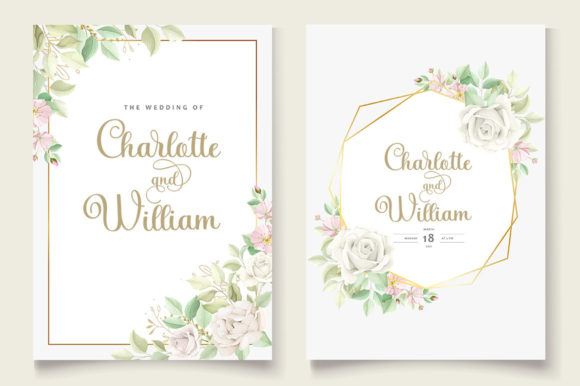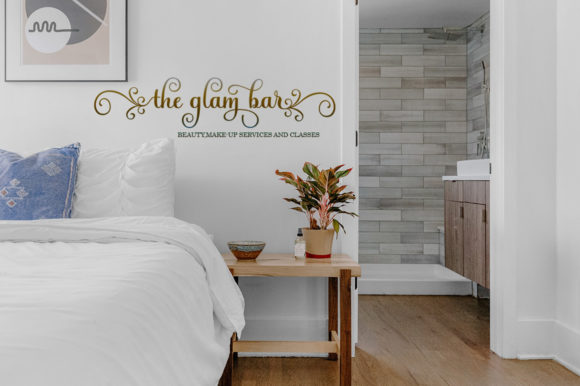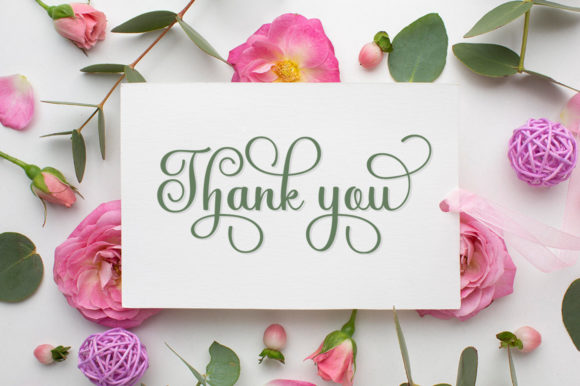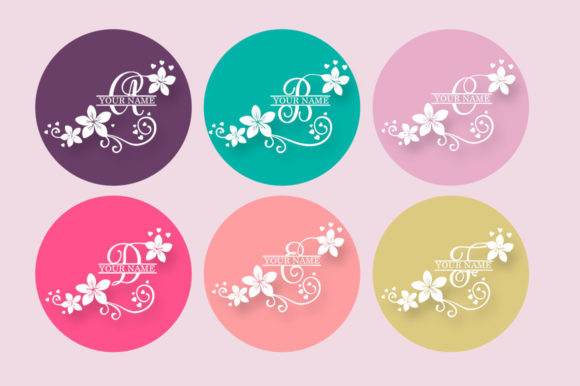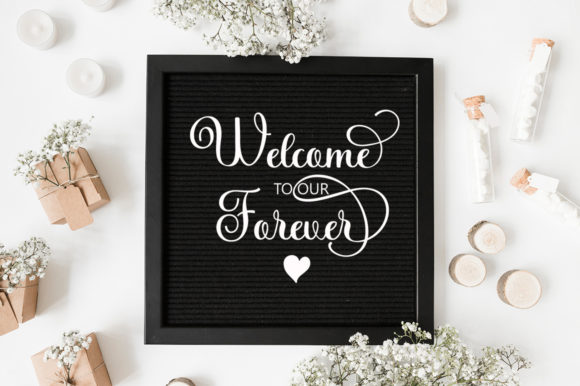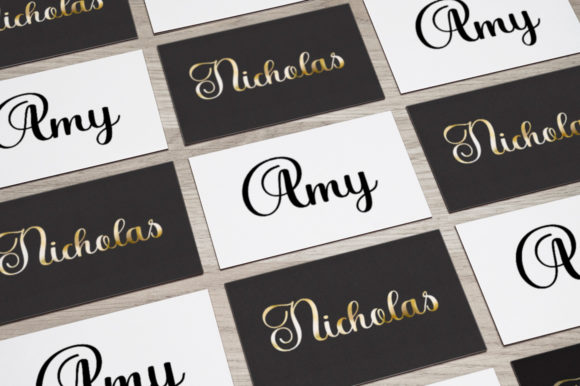
The Elegance of Bouquet Font: A Designer’s Delight
I’ll never forget the time I was working on a wedding invitation project, and my client asked for a font that exuded elegance and sophistication. I scoured the internet, tried out countless fonts, but nothing seemed quite right. That was until I stumbled upon Bouquet Font. It was love at first sight! 💕 The delicate lines, the varying baseline, and the gorgeous glyphs all came together to create a font that was truly breathtaking.
A Personal Review of Bouquet Font
- ✨ Incredibly elegant and delicate, perfect for wedding invitations, thank you cards, and other formal designs
- ✅ Features a varying baseline, which adds a touch of handmade charm to any design
- ✅ Smooth lines and stunning glyphs make it a joy to work with
- ✅ Stunning alternates and OpenType features allow for endless creative possibilities
While Bouquet Font is a stunning addition to any design, there are a few things to keep in mind. 🤔 For example, it can be a bit tricky to read at very small sizes, so it’s best to use it for headlines or titles rather than body text. ⚠️ Additionally, some of the more intricate glyphs may not display properly on all devices or platforms.
The Story Behind Bouquet Font
Bouquet Font was designed by a talented typographer who wanted to create a font that captured the essence of a beautiful, hand-tied bouquet. With its delicate lines, varying baseline, and gorgeous glyphs, Bouquet Font is the perfect choice for designers who want to add a touch of elegance and sophistication to their work.
| What is Bouquet Font best used for? | Bouquet Font is perfect for designs that need a touch of elegance and sophistication, such as wedding invitations, thank you cards, and luxury brands. |
| Does Bouquet Font come with OpenType features? | Yes, Bouquet Font features a range of OpenType features, including stylistic alternates, glyphs, and ligatures. |
| Is Bouquet Font easy to read? | Bouquet Font is generally easy to read, but it can be a bit tricky at very small sizes. It’s best used for headlines or titles rather than body text. |